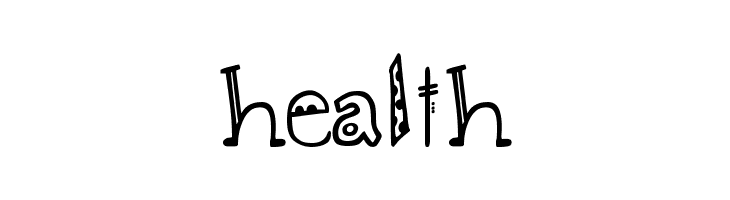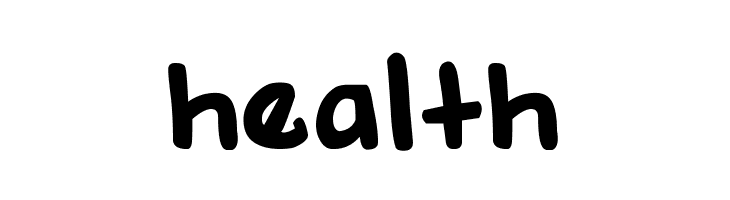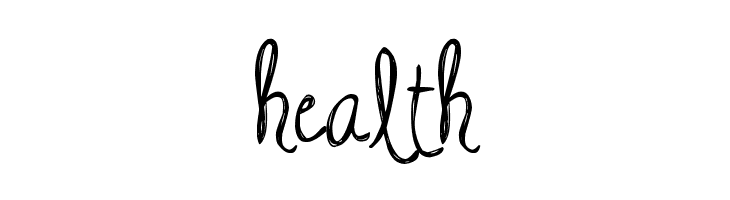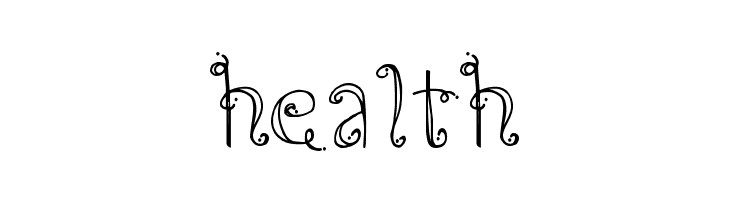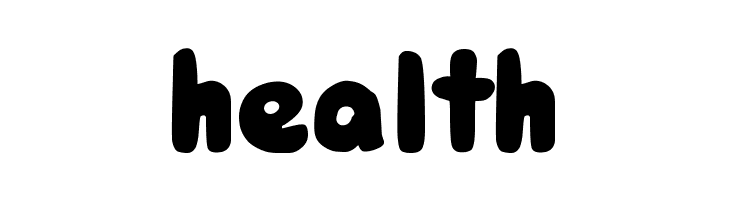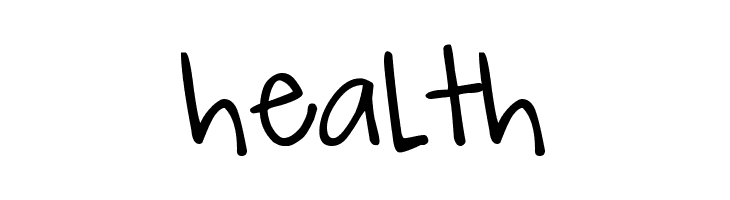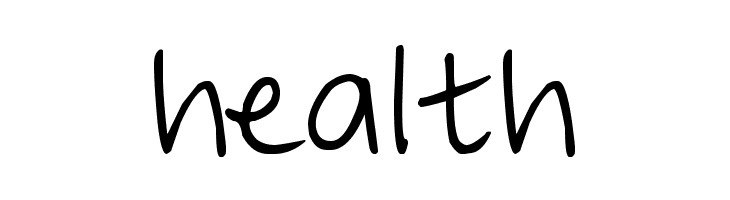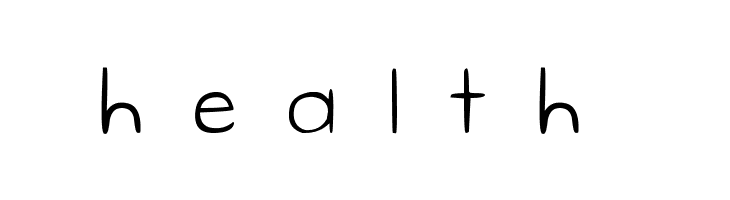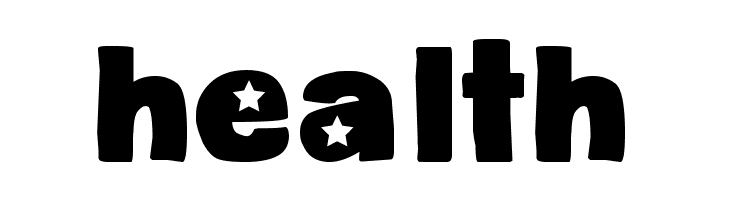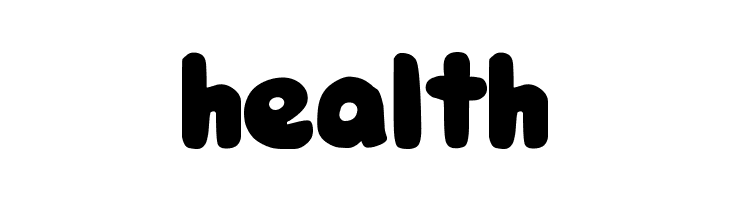
A whimsical and decorative font with playful, unique letterforms.
A whimsical, floral-themed decorative font with playful, curly lines.
A playful, handwritten-style font with rounded, casual characters.
A playful, casual handwritten font with smooth, rounded edges.
A playful, handwritten font with whimsical character details.
A playful handwritten font with a casual, friendly appearance.
A bold, playful font with thick, rounded letters and a friendly style.
A bold, playful font with rounded, chunky letters and a whimsical style.
A playful, handwritten font with whimsical embellishments and dynamic strokes.